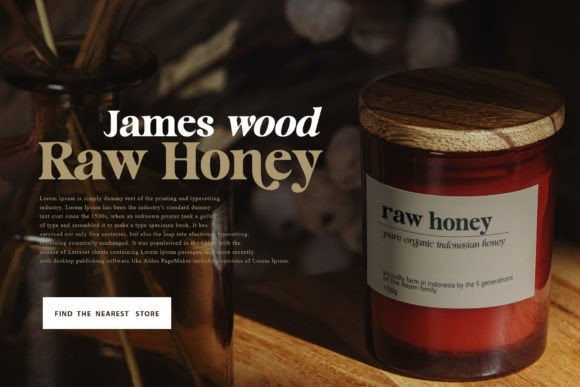
Amazing Scenario Font
Amazing Scenario Serif Font is a bold, elegant, and modern vintage font. It’s a very versatile font that works great in large and small sizes. Perfect for branding projects, logo design, clothing branding, product packaging, magazine headers, or simply as a stylish text overlay to any background image.